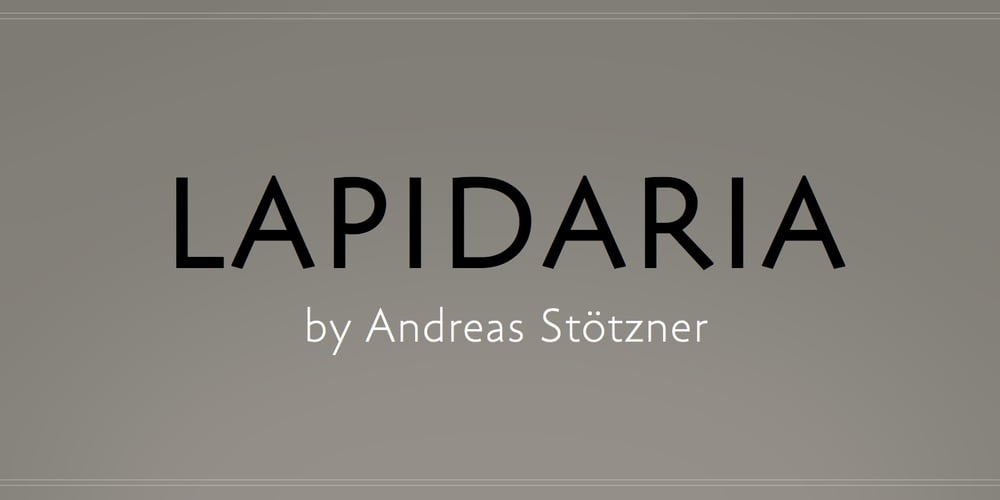
Lapidaria Font Family was designed by Andreas Stötzner and published by SIAS. Lapidaria contains 9 styles and family package options. Lapidaria is a typeface that may be described as a ‘geometric sans with humanist qualities’. Its mood is smart and sober, its appeal is calm, cool and classical. Though quite well performing even in longer text bodies, a particular strength of Lapidaria lies in display typography. The most peculiar aspect of Lapidaria is its new family concept: for the very first time ever a tricameral alphabet model has been realized as a general-use sans: uppercase, lowercase and middlecase letters blending smoothly into one typographic tone, thus offering entirely new typographic possibilities. – The middlecase (or uncial) sorts being accommodated in the lowercase positions of the Medior fonts. All nine fonts equally offer full character coverage for all Euro-Latin languages – and for Greek. There are a lots of special characters and ligatures. Last but not least, a set of ten ornament characters (in each font) will let you make sparkling designs which will thrill your clients. Each font contains about 500 characters, that makes over 4,500 in total for the complete Lapidaria family package. __________________________________________________________________________________________